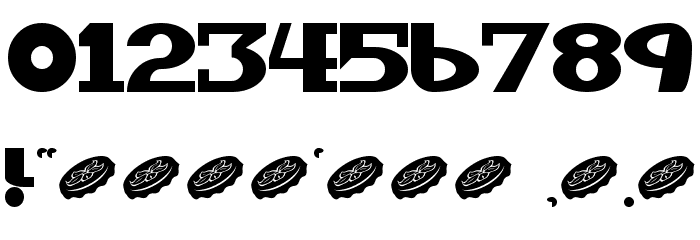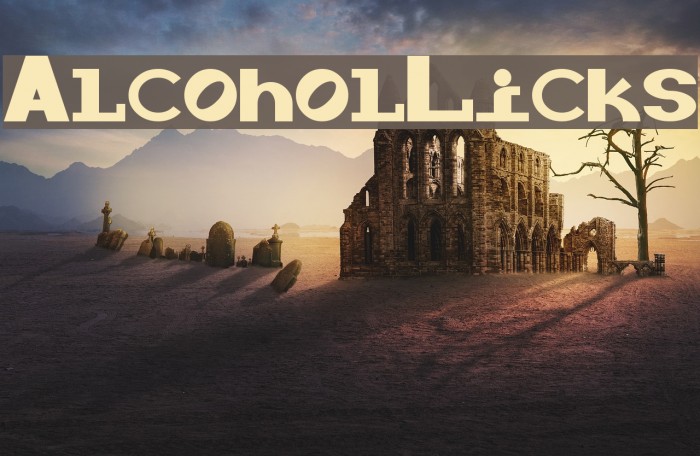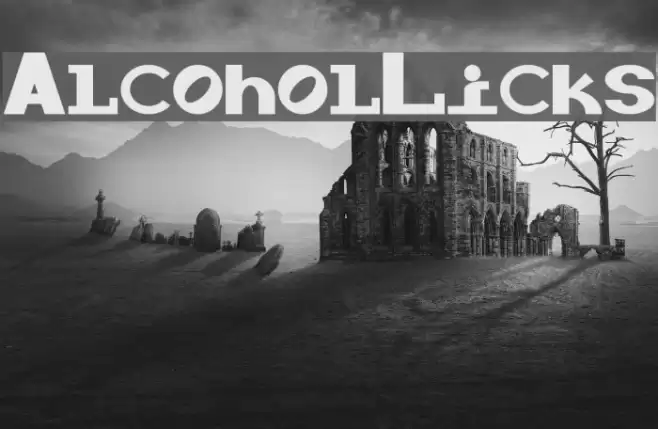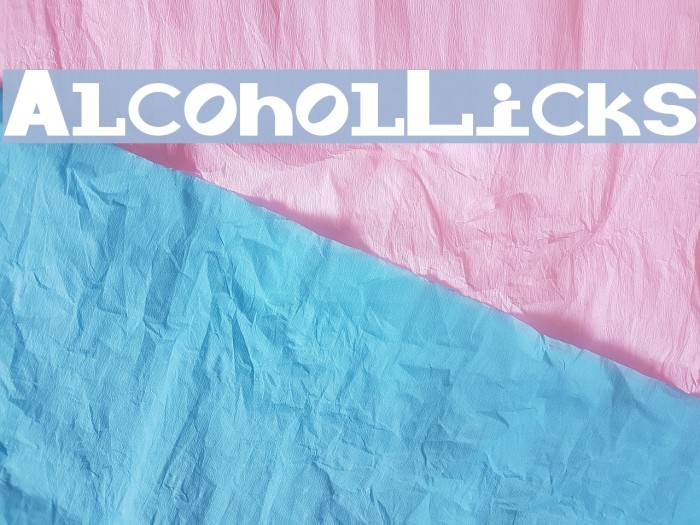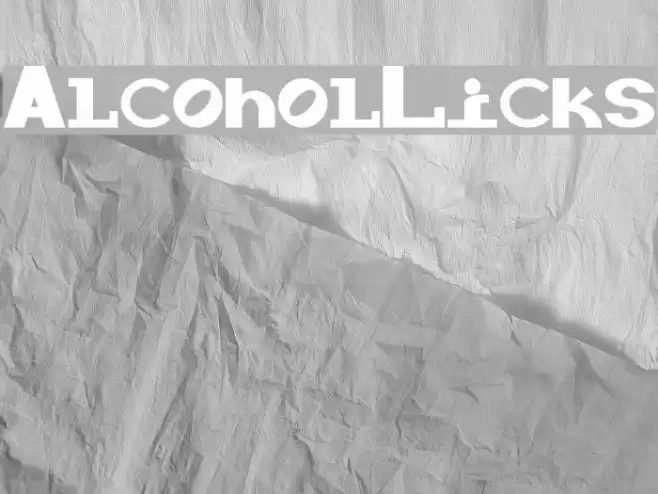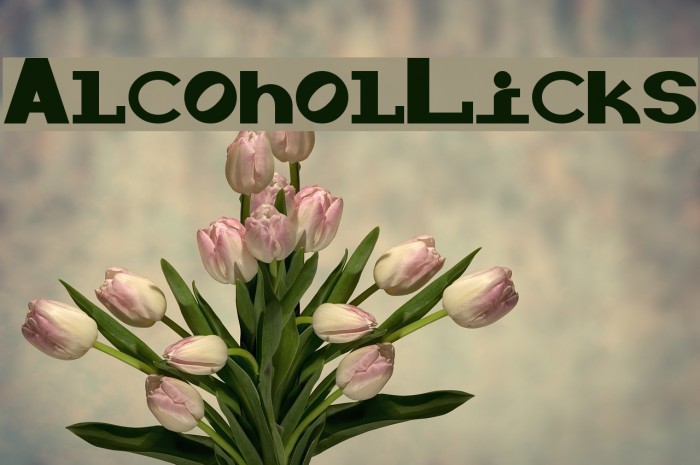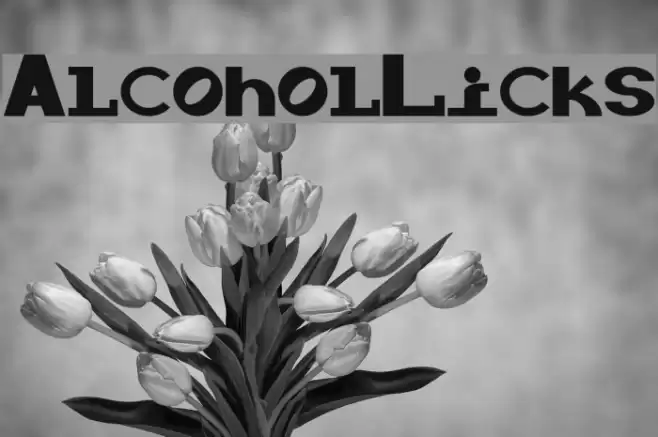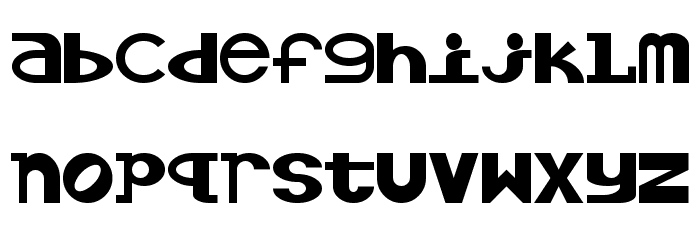
Alcohol-Licks Font
Alcohol-Licks Description
This font features a bold and playful design with a strong geometric influence. The characters are thick and rounded, giving a sense of strength and stability. The uppercase letters have a uniform height, while the lowercase letters maintain a consistent style with slight variations in form. The numbers are distinct and easily readable, matching the overall bold aesthetic. Special characters are creatively designed, adding a unique flair to the font. This font's style is both modern and decorative, making it suitable for eye-catching designs.
| Overall Style | Modern, Decorative |
| Proposed Projects | Ideal for branding, posters, headlines, and any design that requires a strong visual impact. |